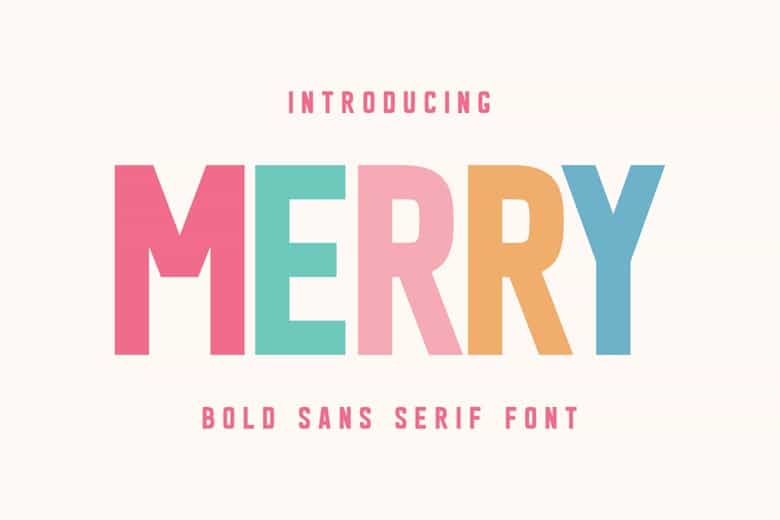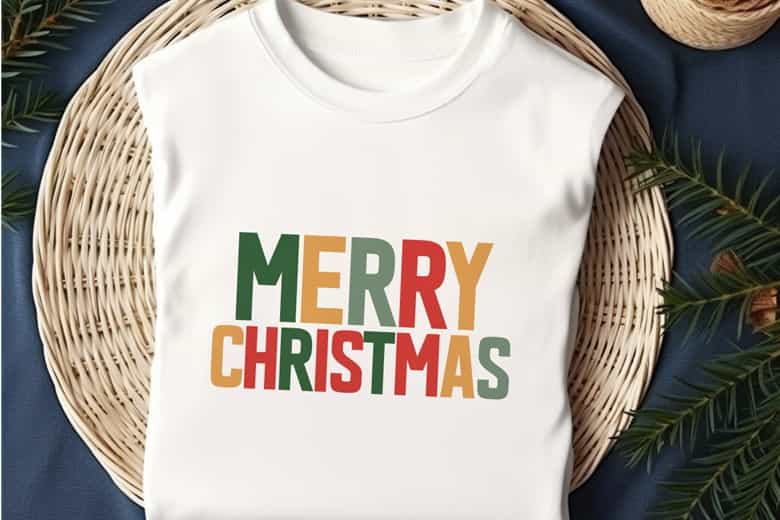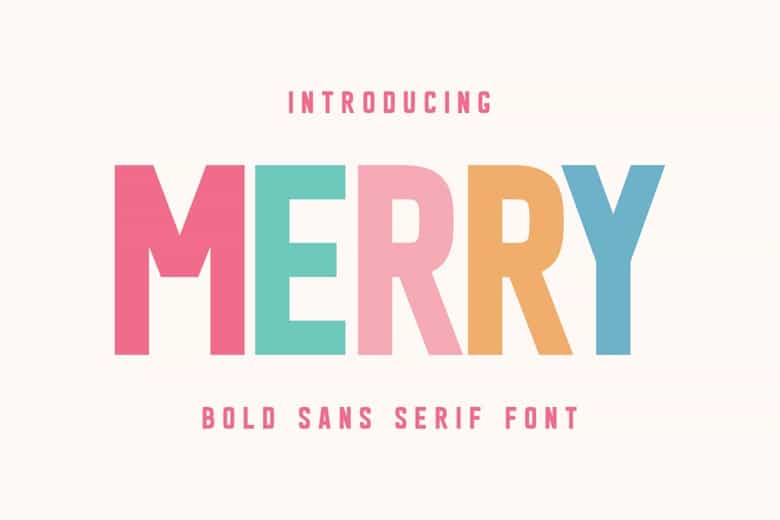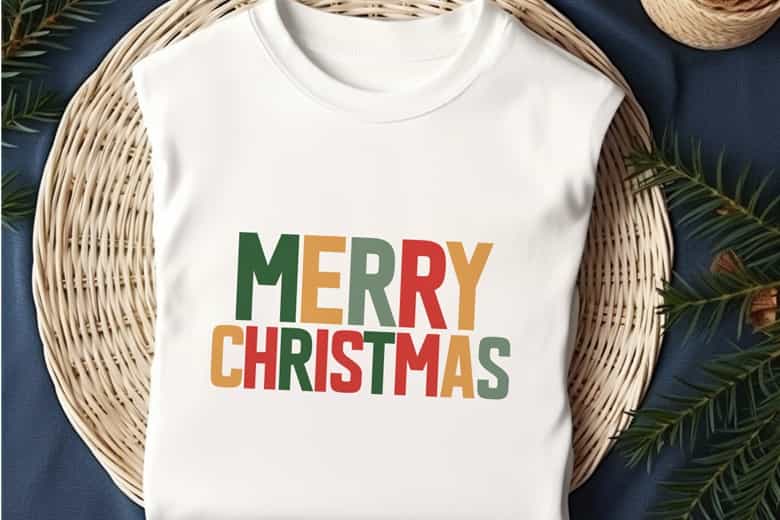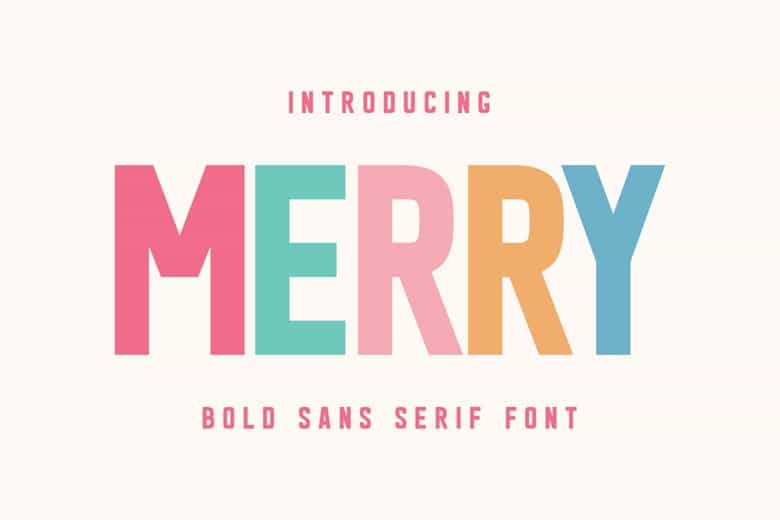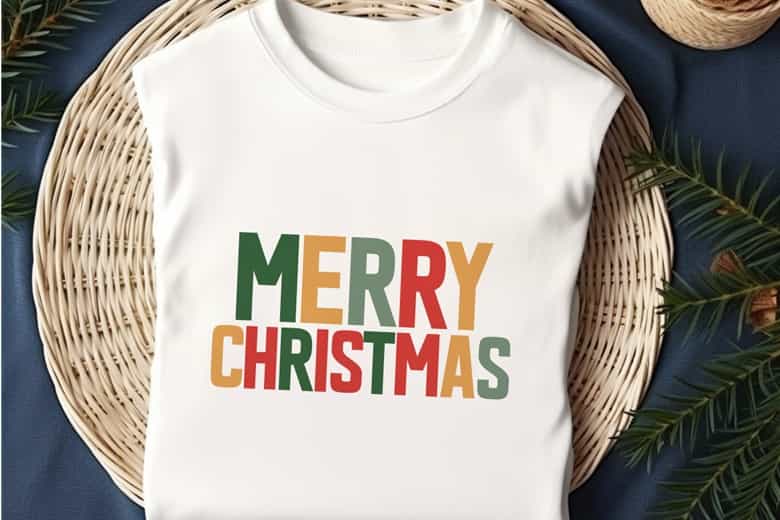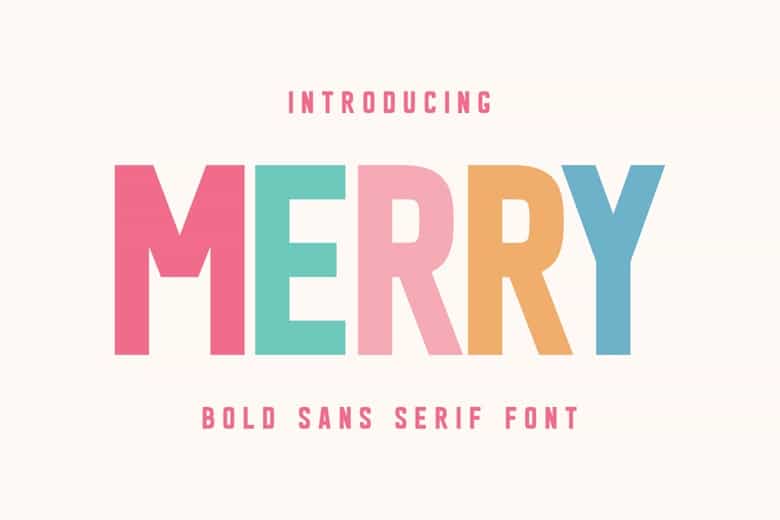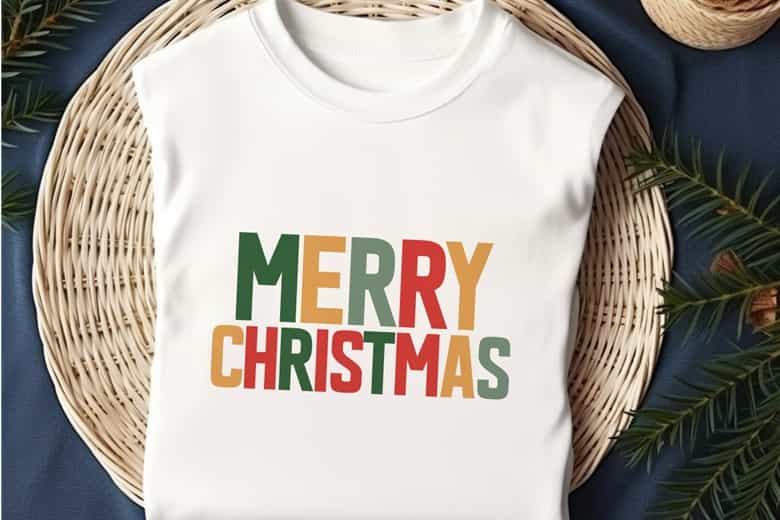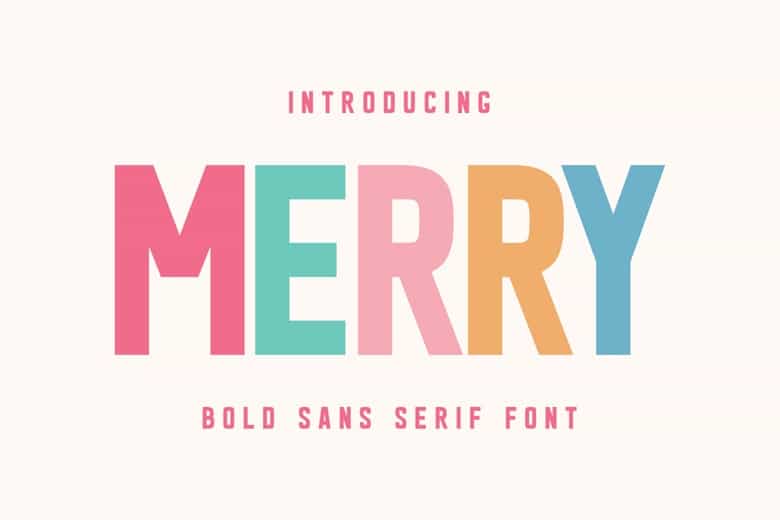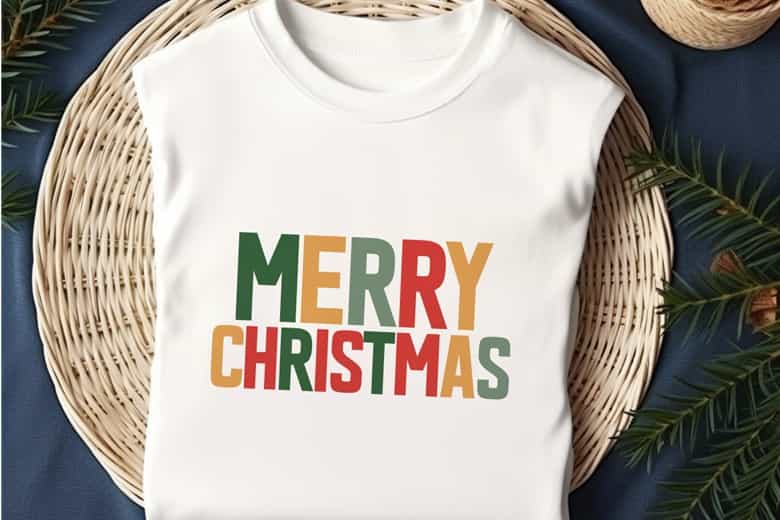
Merry is an exuberant sans serif display font possessing a contagious energy and contemporary flair, designed with makers, crafters, designers, and creative entrepreneurs within the Print-on-Demand industry in mind. Merry makes every t-shirt, sticker, mug, poster, product package, and social media graphics look inviting with its friendly, yet clean design.